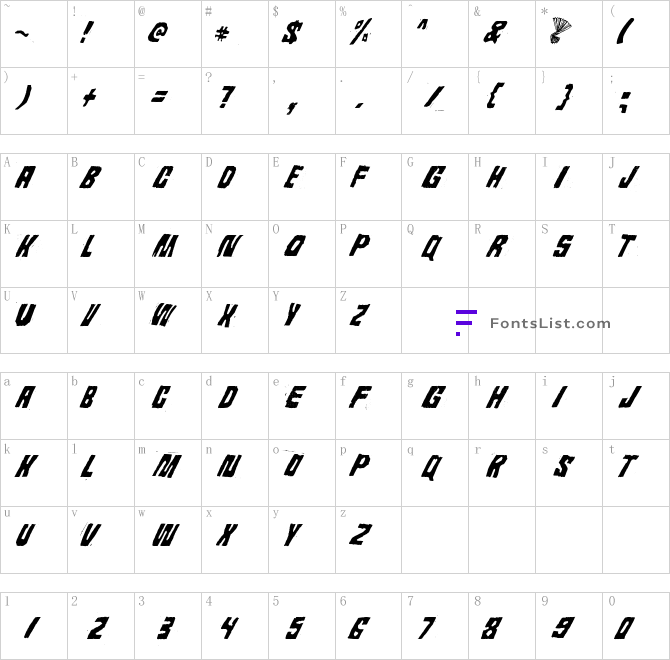
- Font Name:Androidi Pisa
- Full Name:Androidi Pisa
Androidi-Pisa.ttf is a very beautiful artistic font, Androidi-Pisa.ttf is widely used in the design and printing of various books and pictures,Androidi-Pisa.ttf has a strong visual impact,Androidi-Pisa.ttf is a commonly used font in newspapers, magazines and books, and is used in posters, e-commerce Poster design, store design, logo design, font design and other fields.Androidi-Pisa.